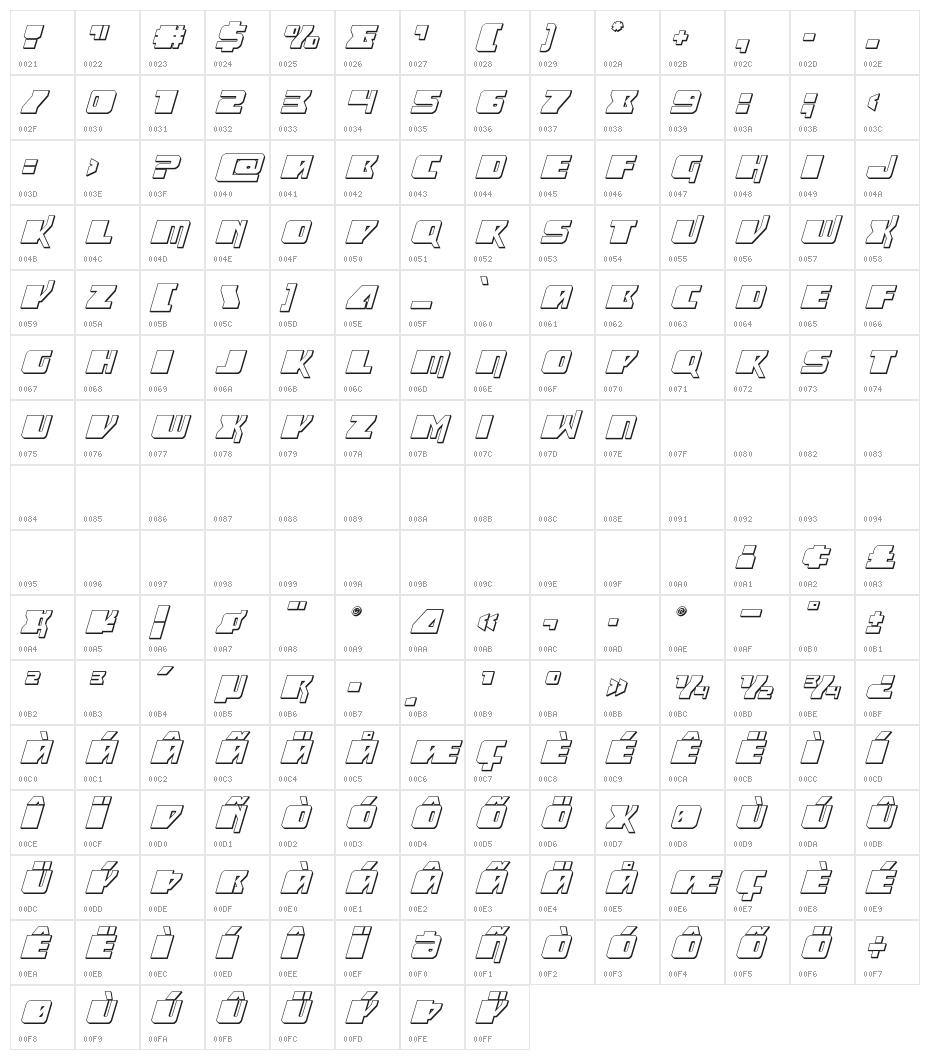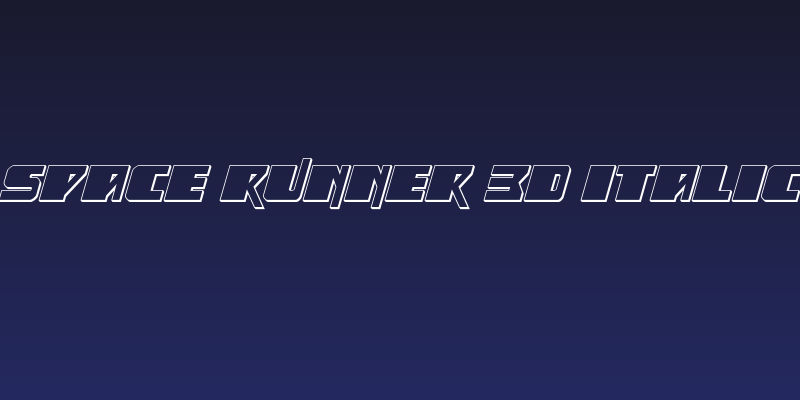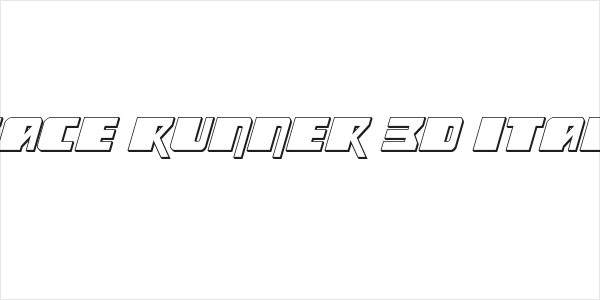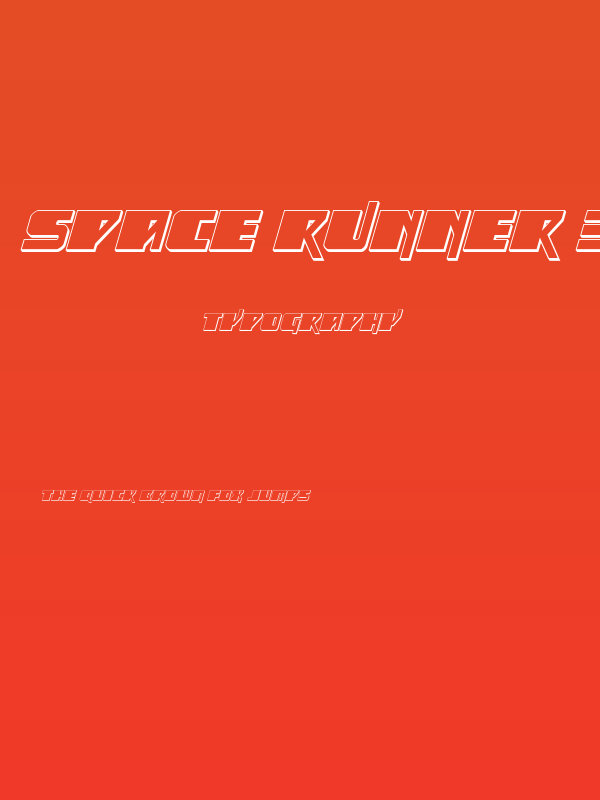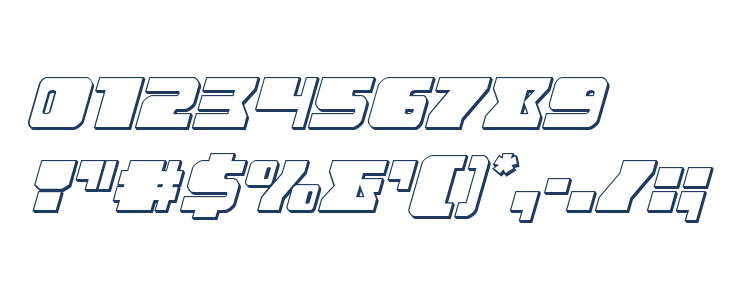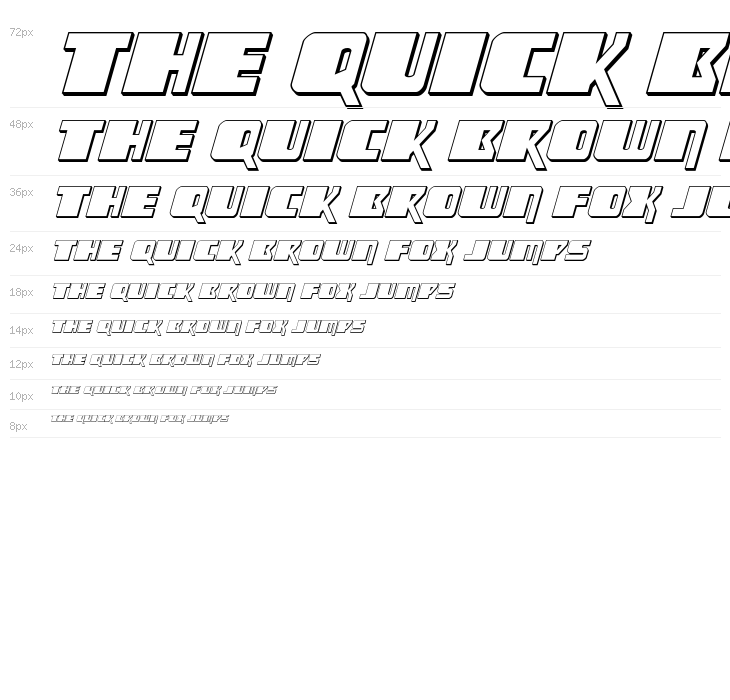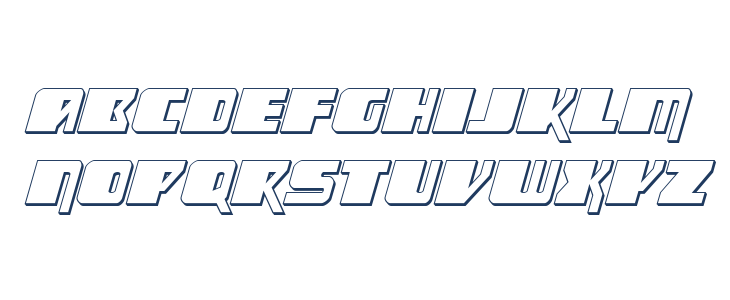
Space Runner 3D Italic Font
Space Runner 3D Italic Description
This font features a bold, futuristic design with a distinct 3D effect. The characters are italicized, giving them a dynamic and forward-leaning appearance. The bold outlines enhance the three-dimensional look, making each letter stand out prominently. The angular and geometric shapes of the letters contribute to a modern and tech-inspired aesthetic. The font maintains a consistent width across all characters, ensuring uniformity and balance. The numbers and special characters are designed to match the bold and futuristic style, making this font suitable for projects that require a strong visual impact.